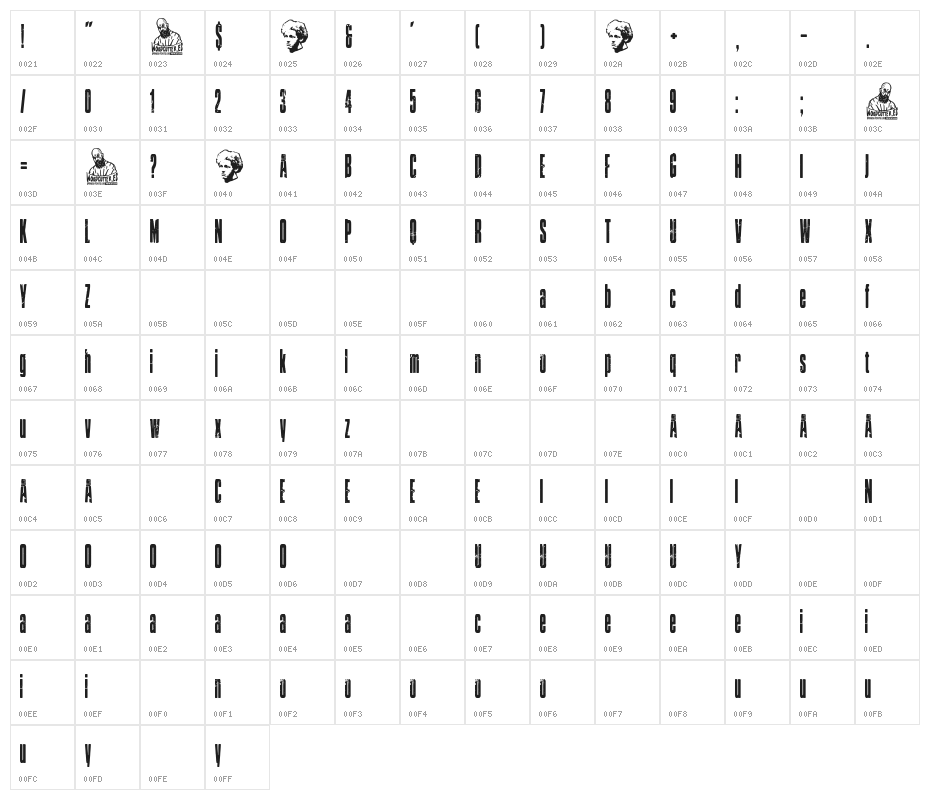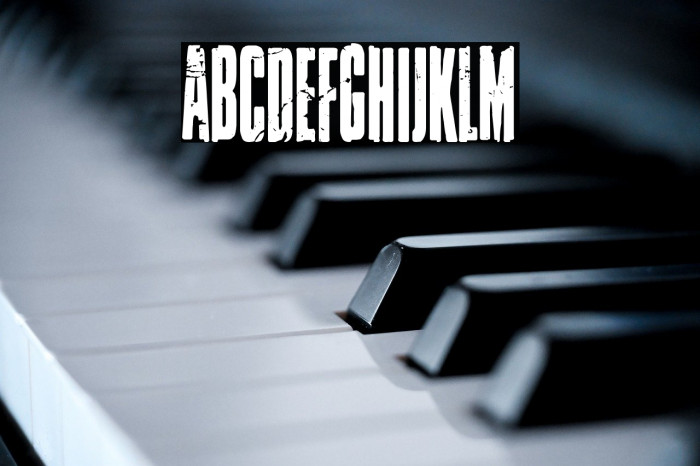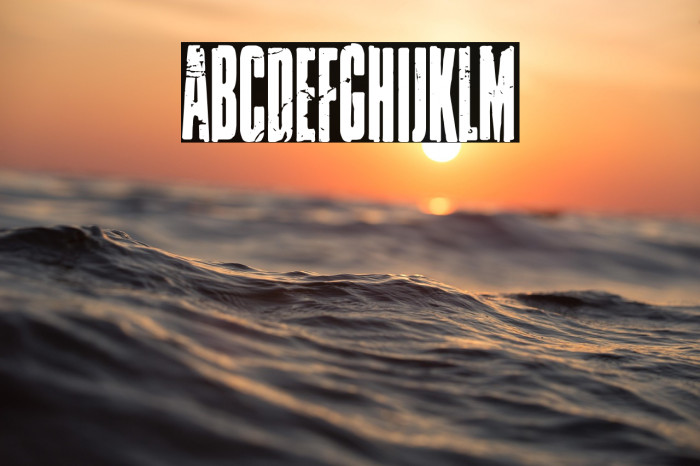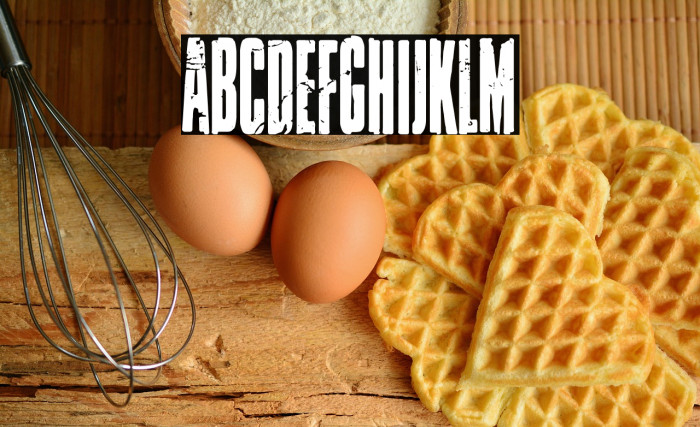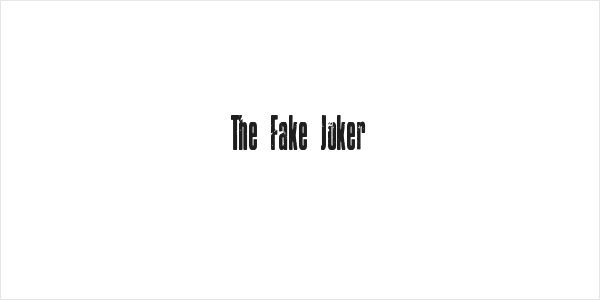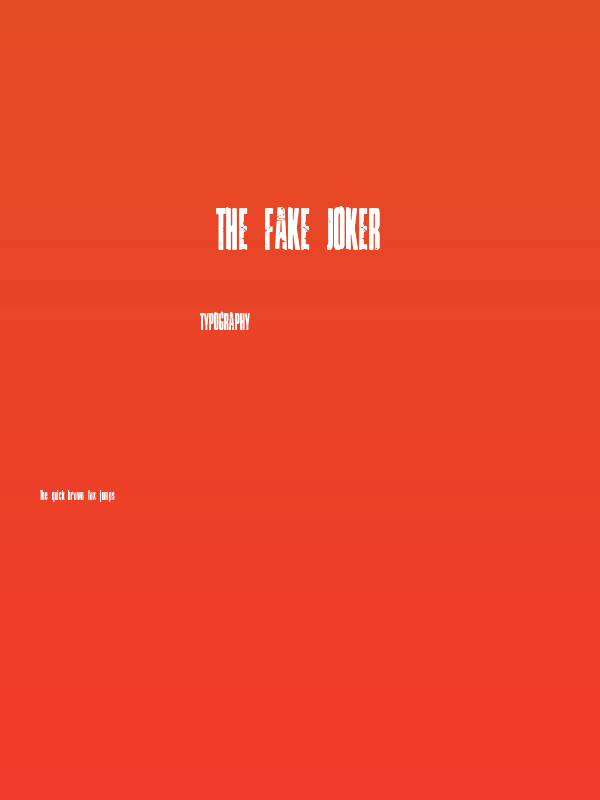
The Fake Joker Font
The Fake Joker Description
This font exhibits a distressed, grunge style with a bold and impactful appearance. The characters are heavily textured, giving them a worn and rugged look. The uppercase and lowercase letters maintain a consistent height, while the numbers and special characters follow the same distressed theme. The font's rough edges and uneven texture contribute to its unique, eye-catching design, making it suitable for projects that require a bold statement. Its uneven surface and bold strokes create a sense of urgency and rawness, perfect for artistic and edgy designs.
| Overall Style | Grunge, Edgy |
| Proposed Projects | Ideal for posters, album covers, streetwear branding, and edgy graphic designs. |